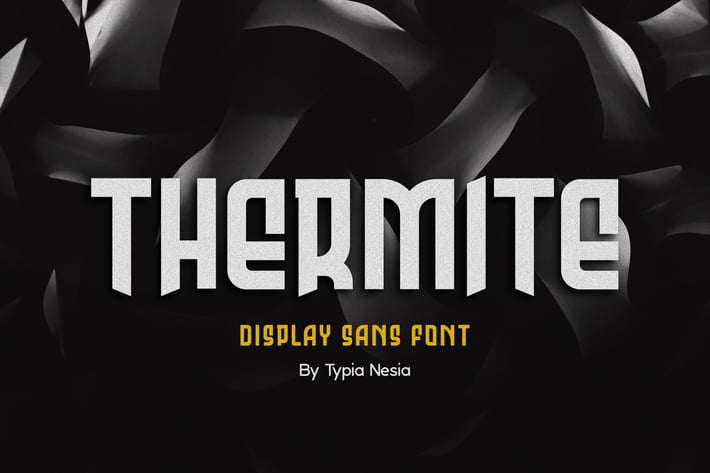
Thermite Display - Sport Font
Thermite Display - Sport Font.
Thermite font can be used in different purposes: lettering and logotype, labels, t-shirts, product packaging, invitations, advertising, and any classic / vintage typography design projects.